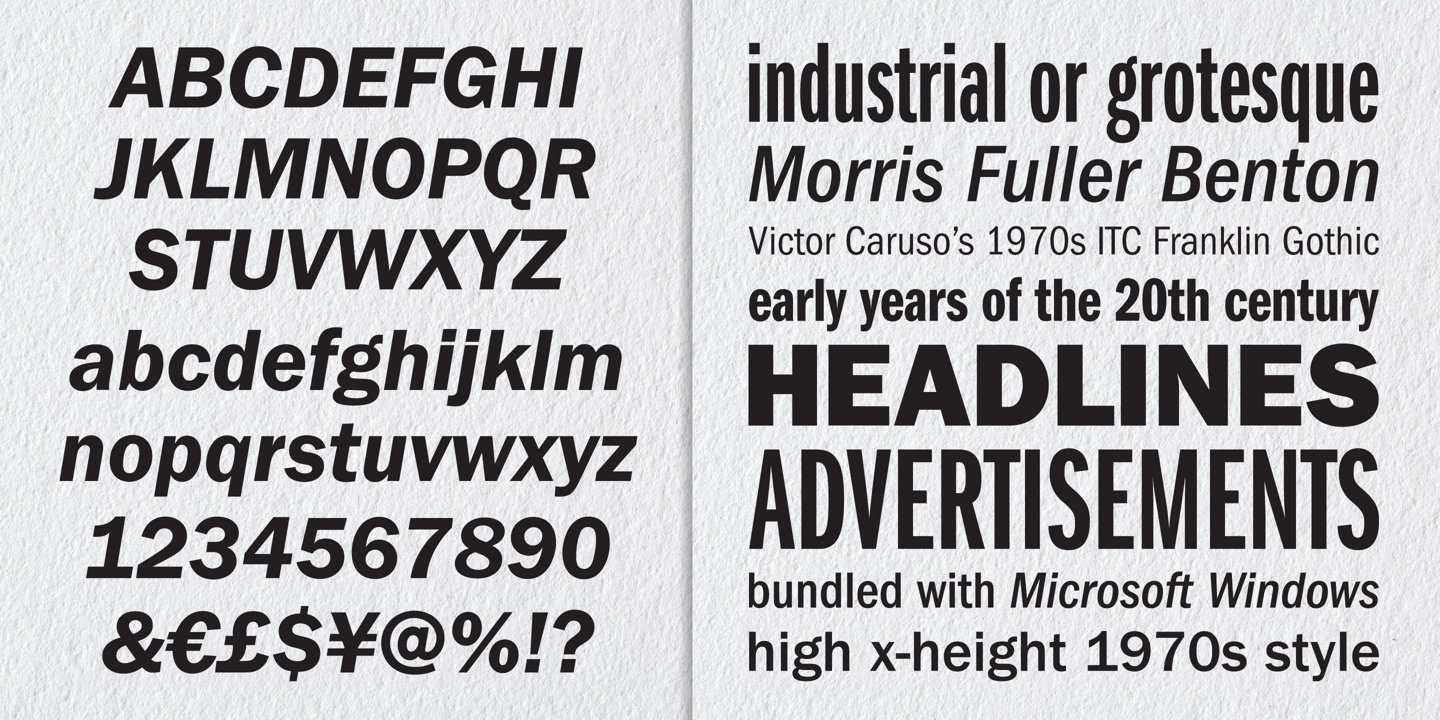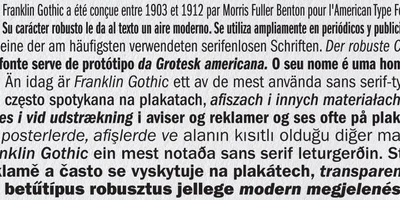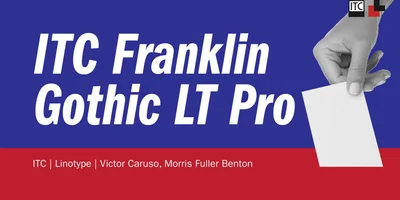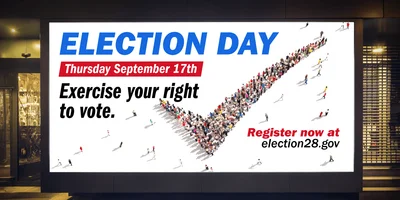
ABC Maxi vs Franklin Gothic
ABC Maxi and Franklin Gothic are both sans-serif typefaces sharing a bold foundation. Where ABC Maxi leans display, rounded, Franklin Gothic brings condensed, editorial. Compare which suits your Headlines project.
Recommended: ABC Maxi
- display, rounded design character
- Suited for Display and Branding
Consider: Franklin Gothic
- condensed, editorial design character
- Suited for Editorial and Advertising